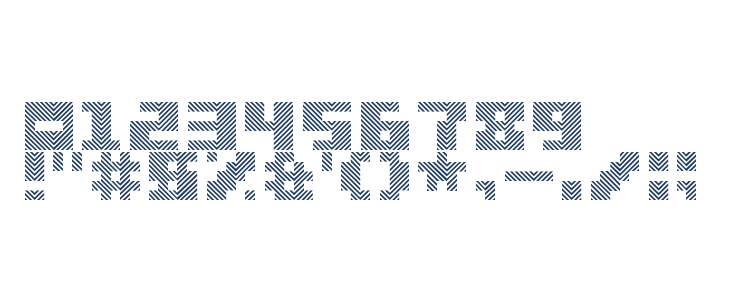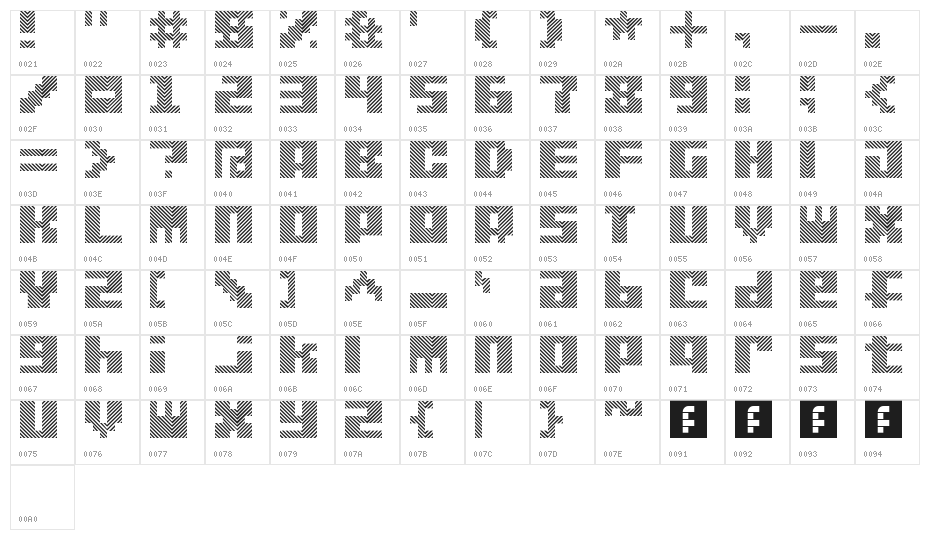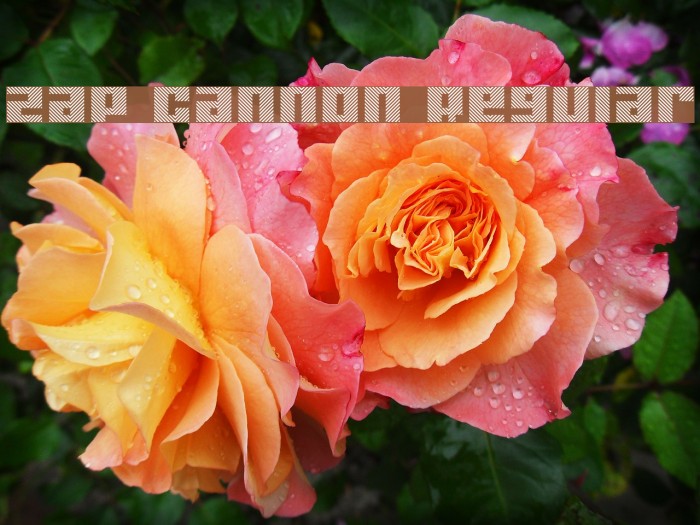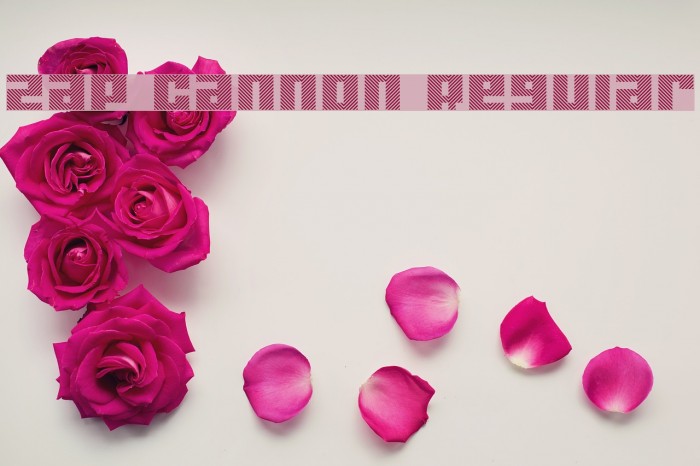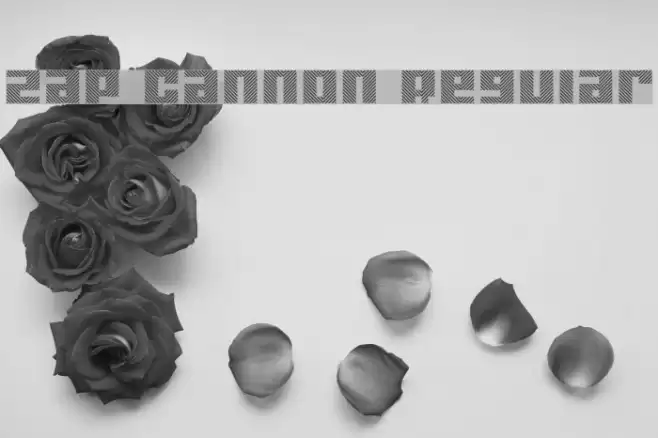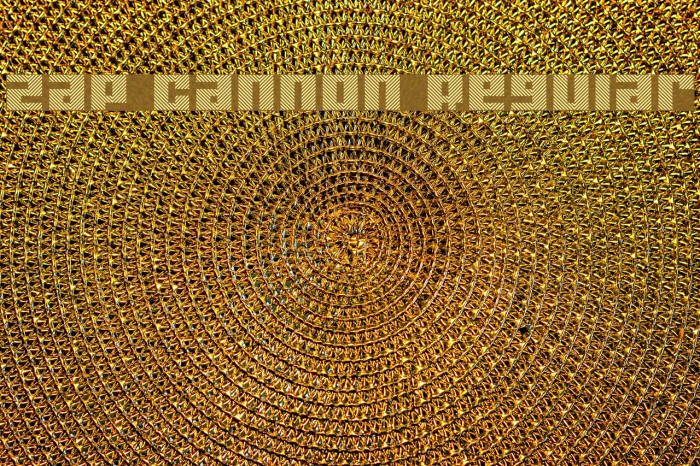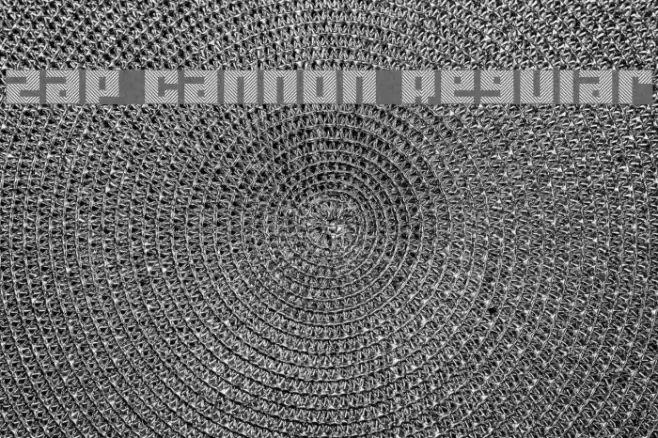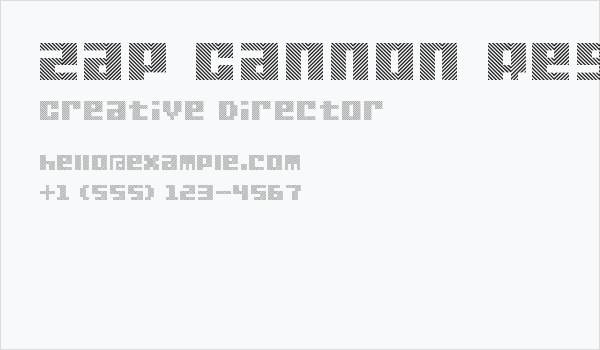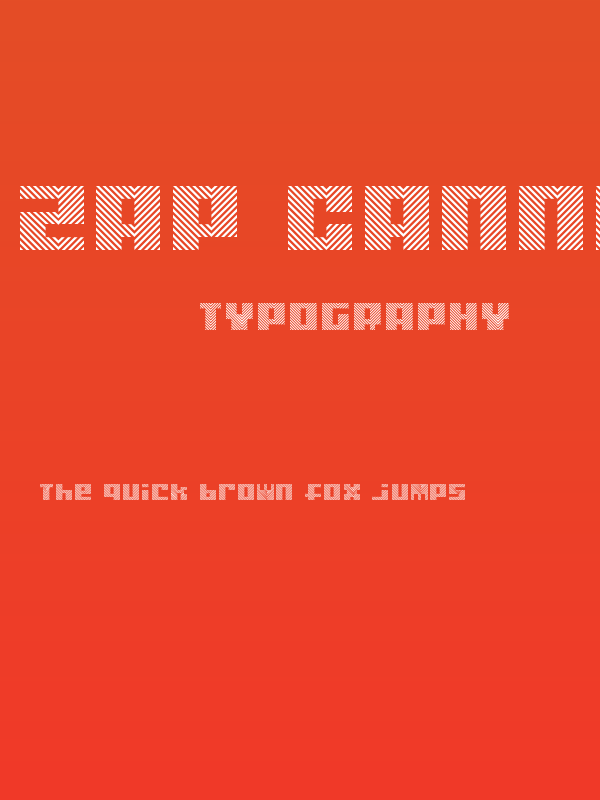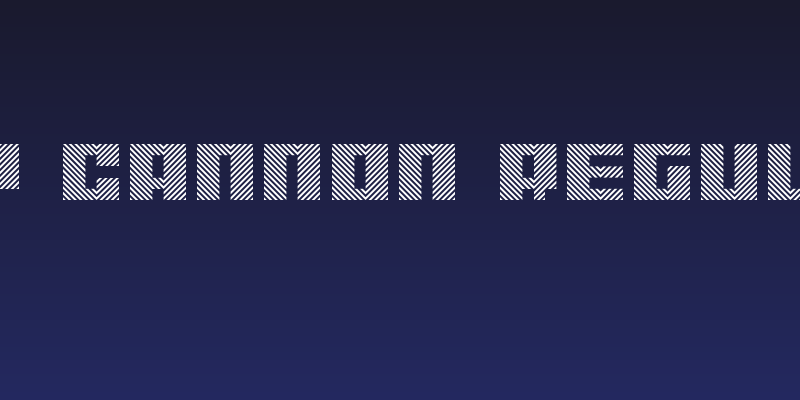
Zap Cannon Regular Font
Zap Cannon Regular Description
This font features a bold, geometric design with a unique pattern of diagonal lines filling each character. The letters are constructed with a blocky, angular style that gives them a futuristic and digital appearance. The consistent use of diagonal hatching creates a sense of depth and texture, making the characters stand out. The uppercase and lowercase letters maintain a uniform width, while the numbers and special characters follow the same design principles, ensuring a cohesive look across all elements. This font's distinct style makes it ideal for projects that require a modern and eye-catching typeface.
| Proposed Projects | Ideal for digital art, tech branding, video game titles, and futuristic posters. |